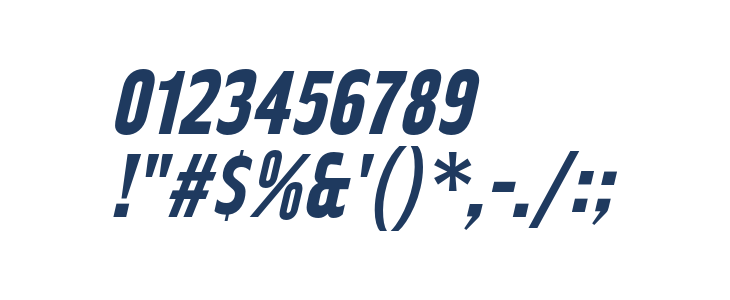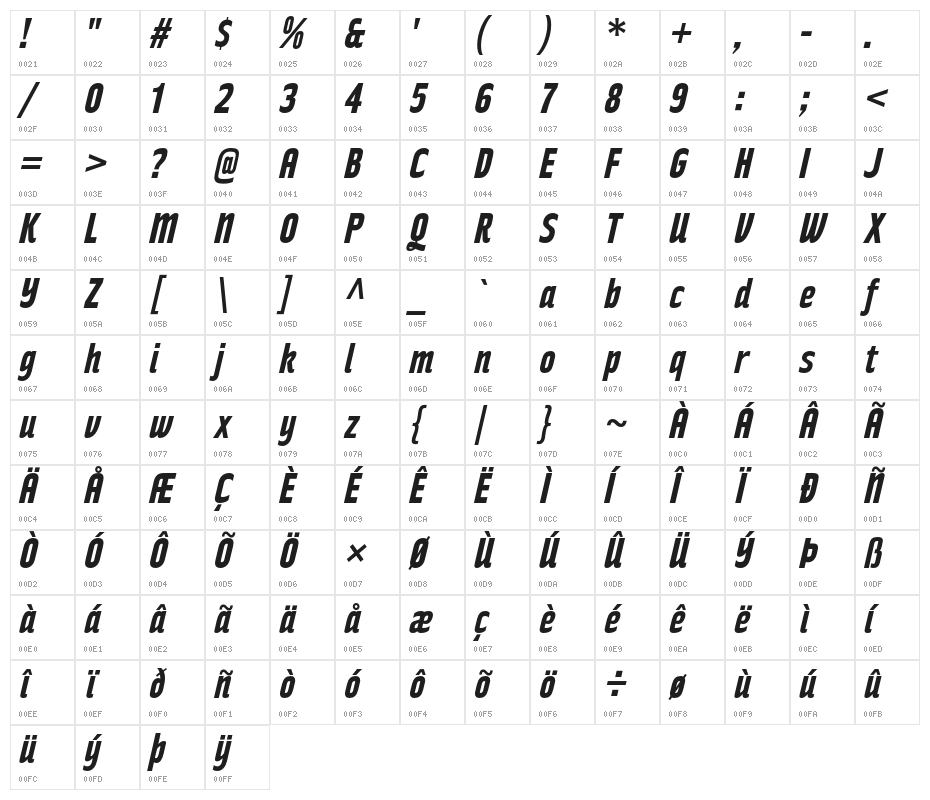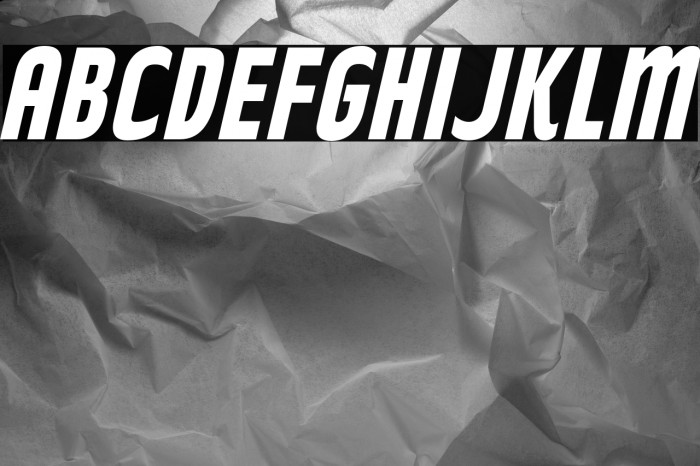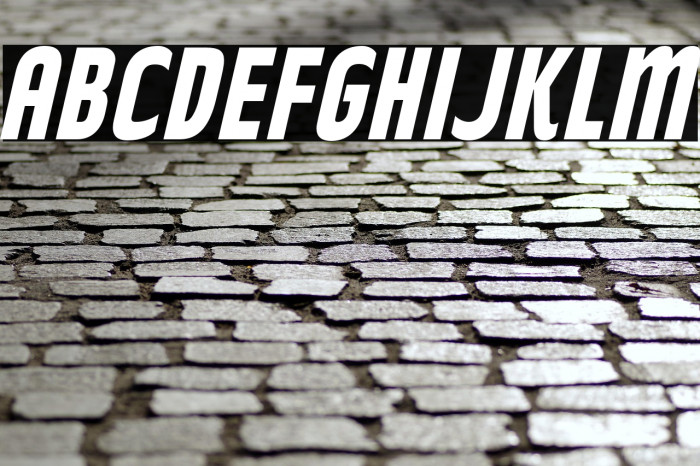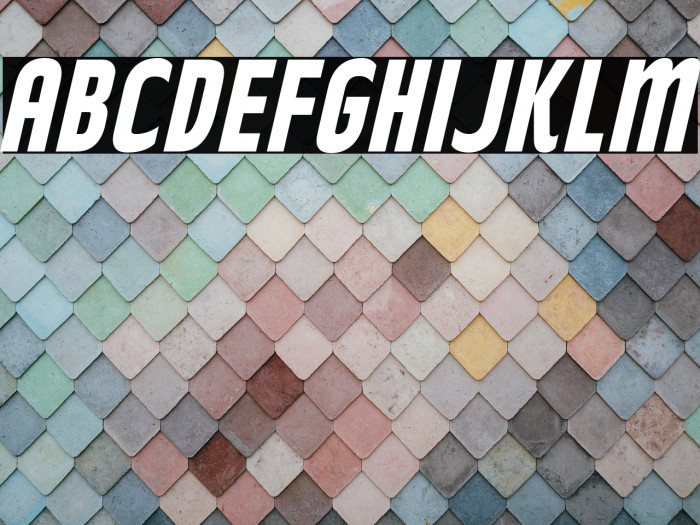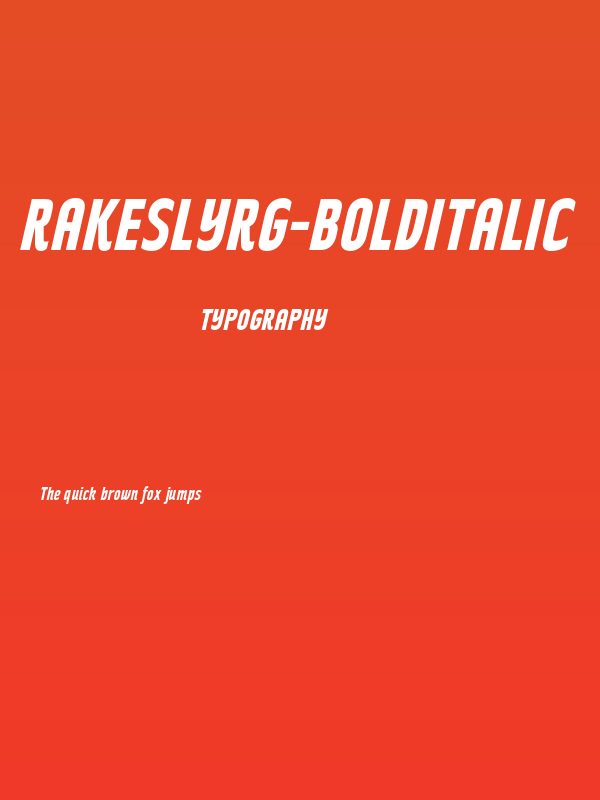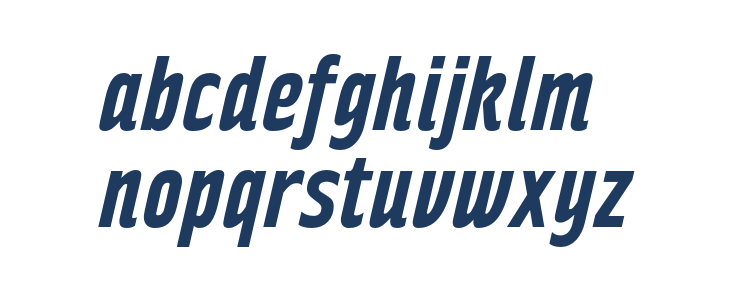
RakeslyRg-BoldItalic Font
RakeslyRg-BoldItalic Description
This font exhibits a bold and italicized style, characterized by its strong and dynamic presence. The letters are slightly slanted, adding a sense of motion and energy. The strokes are thick and consistent, providing a robust appearance. The font maintains a uniform width across all characters, ensuring readability and balance. It features a modern and sleek design, suitable for various applications where a bold statement is required. The numbers and special characters are designed to match the boldness and style of the letters, making it versatile for different uses.
| Proposed Projects | Ideal for headlines, posters, branding materials, and advertisements where a strong impact is needed. |